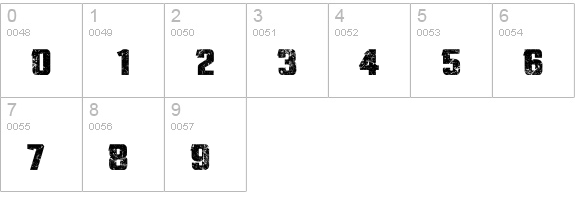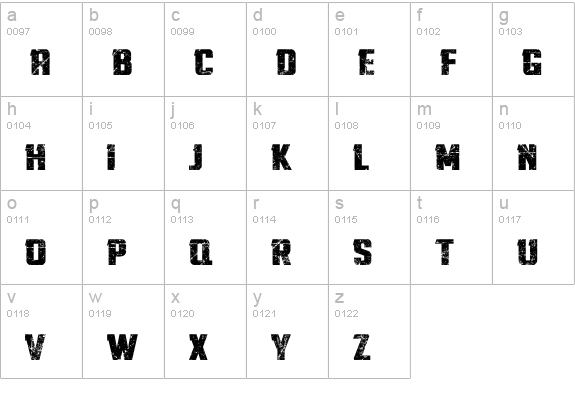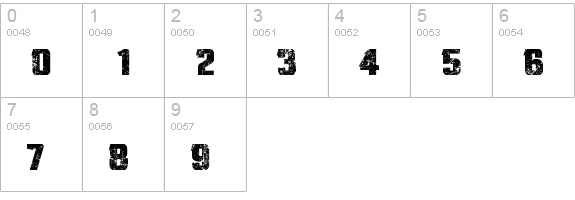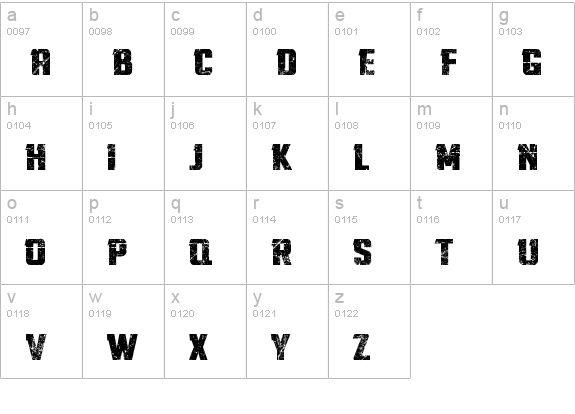
Twisted Stallions Font Details
Introducing Twisted Stallions, a captivating and dynamic font that will add a touch of edgy sophistication to your designs. This font is perfect for those seeking a bold and modern look, with its unique combination of sharp angles and elegant curves. Twisted Stallions exudes a sense of strength and power, making it ideal for projects that require a strong visual impact. Whether you're designing a logo, creating eye-catching headlines, or crafting a striking poster, this font will make your message stand out from the crowd. But what makes Twisted Stallions truly special is that it is not only visually stunning, but also freely available to download at FontsMarket.com. Yes, you read that right - this incredible font can be yours at no cost! Now you can access all the creativity and versatility of Twisted Stallions without breaking the bank. With its extensive character set, Twisted Stallions offers a wide range of options for customization. From uppercase letters that command attention to lowercase letters that add a touch of elegance, this font has it all. Additionally, it includes numerals, punctuation marks, and special characters, ensuring that you have everything you need for your design projects. So why wait? Add a touch of excitement and personality to your next project with Twisted Stallions. Download it today for free at FontsMarket.com and unlock a world of possibilities. Whether you're a professional designer or a creative enthusiast, this font is sure to become an essential tool in your arsenal. Embrace the power of Twisted Stallions and let your creativity run wild.